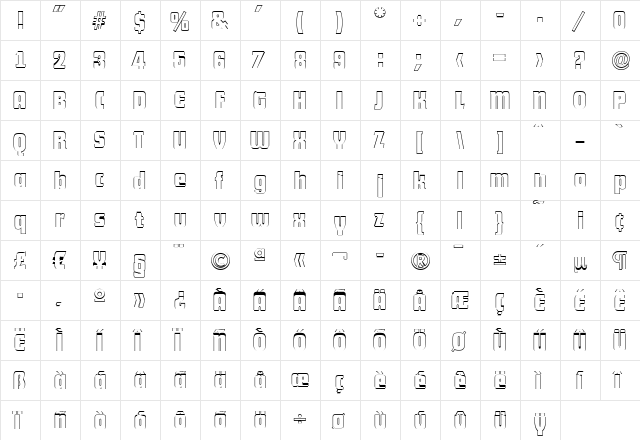
AllisonBeckerOutline Bold
Design Context for AllisonBeckerOutline Typeface
AllisonBeckerOutline is built around its visual character rather than neutral utility — its distinctive forms are designed to make an impression at display sizes. Its bold stroke weight gives it real presence on the page.
Font Pairing: Pair with a clean neutral sans-serif for body copy to let AllisonBeckerOutline's character lead without overwhelming the composition.
Pro Tip: Use AllisonBeckerOutline exclusively at display sizes — it was designed to be seen, not read at length. Let a neutral companion handle body copy.